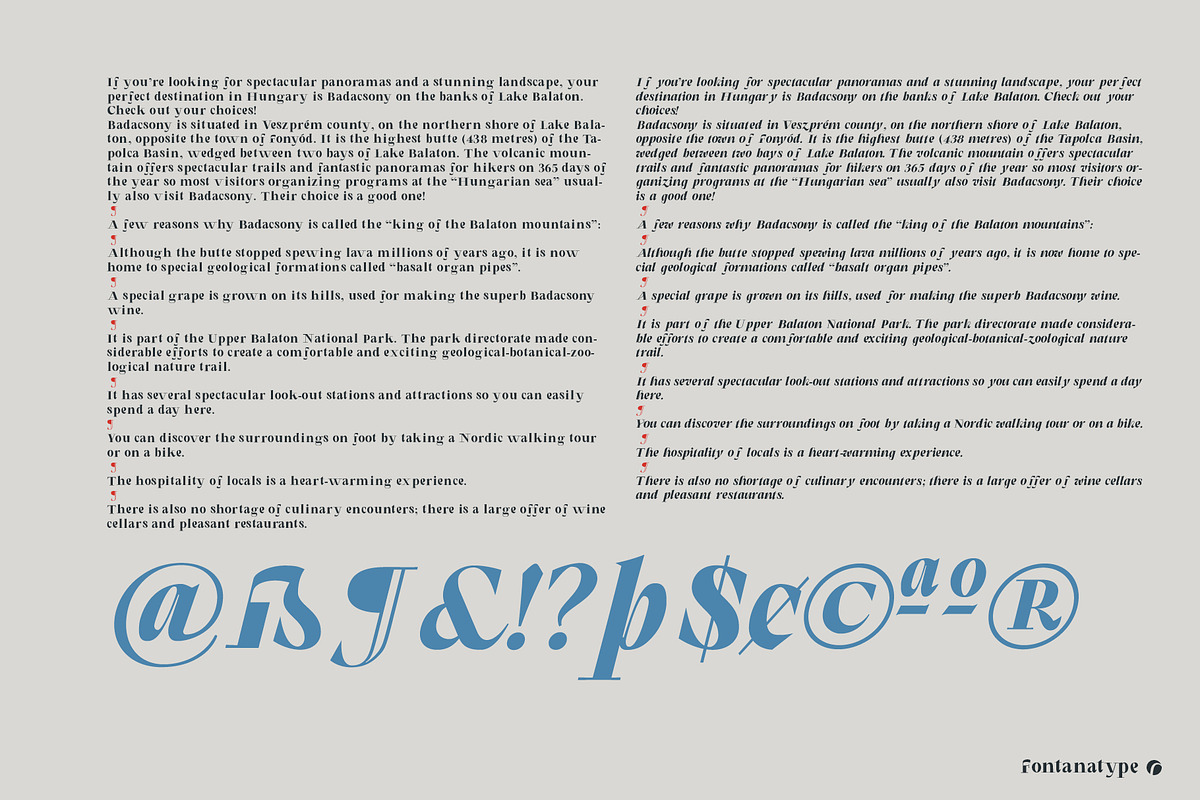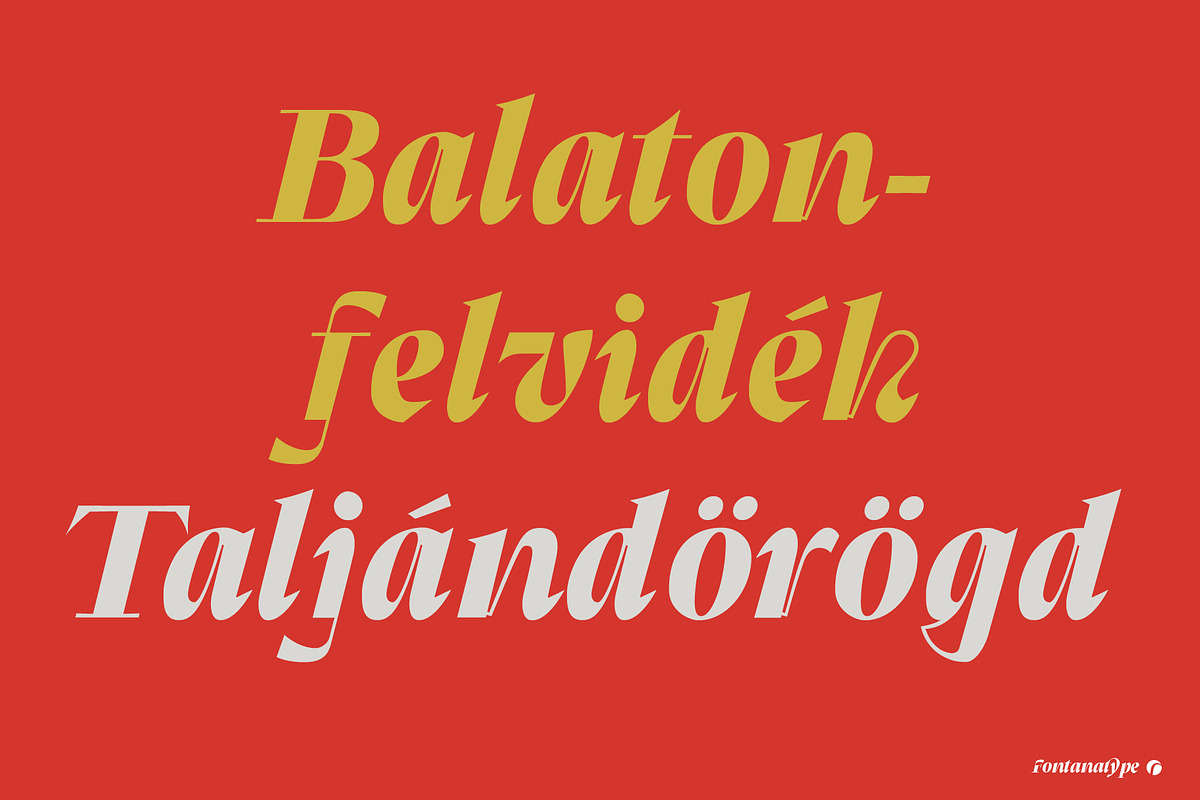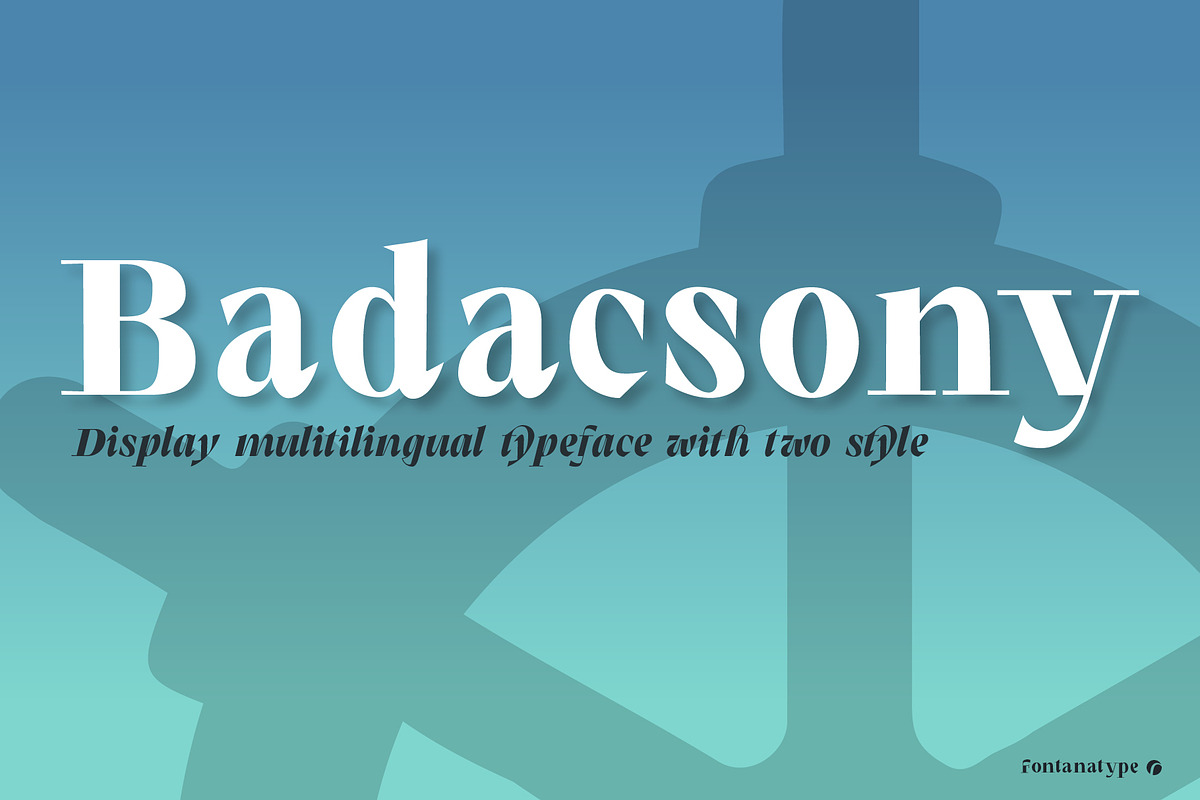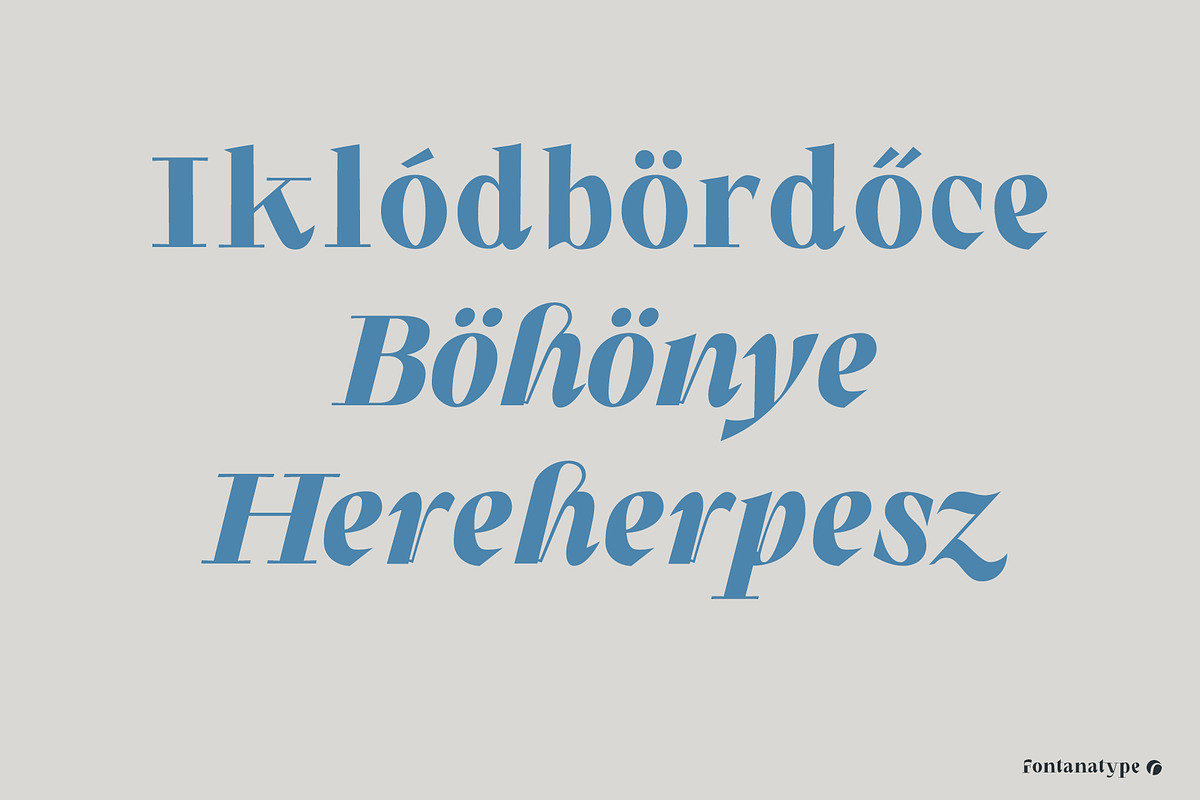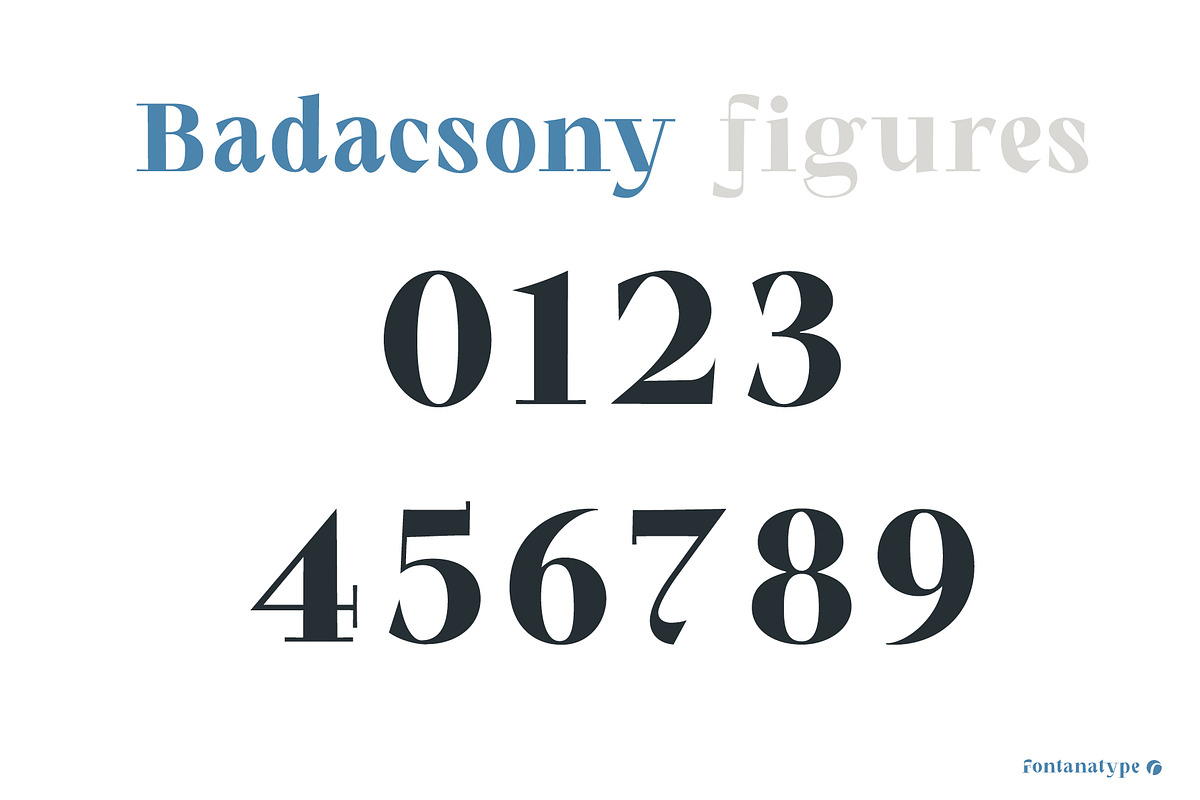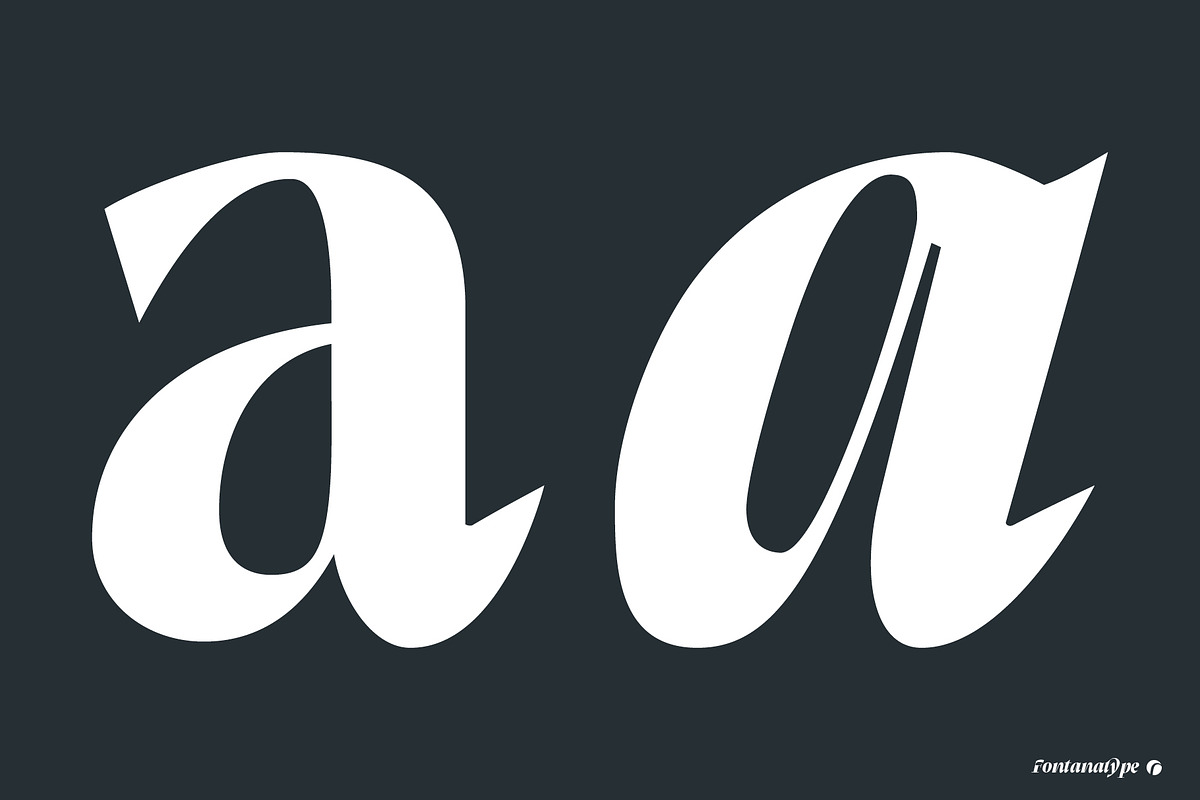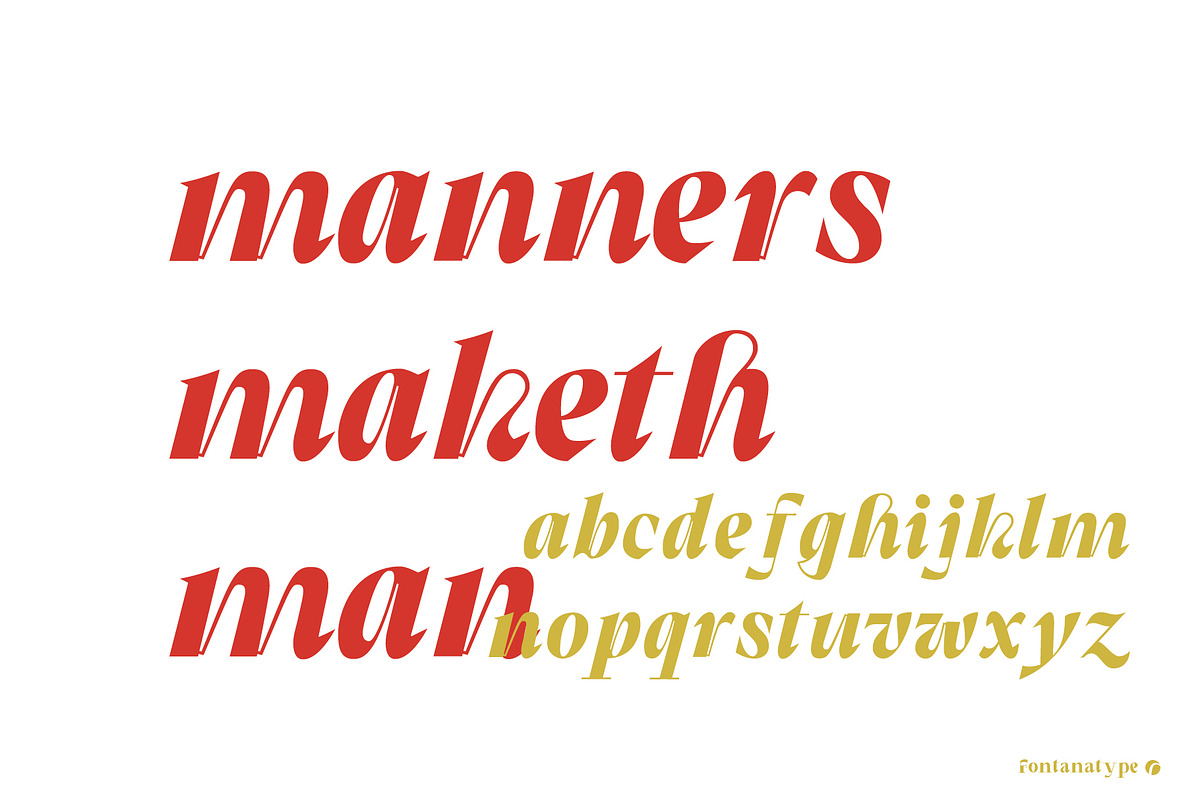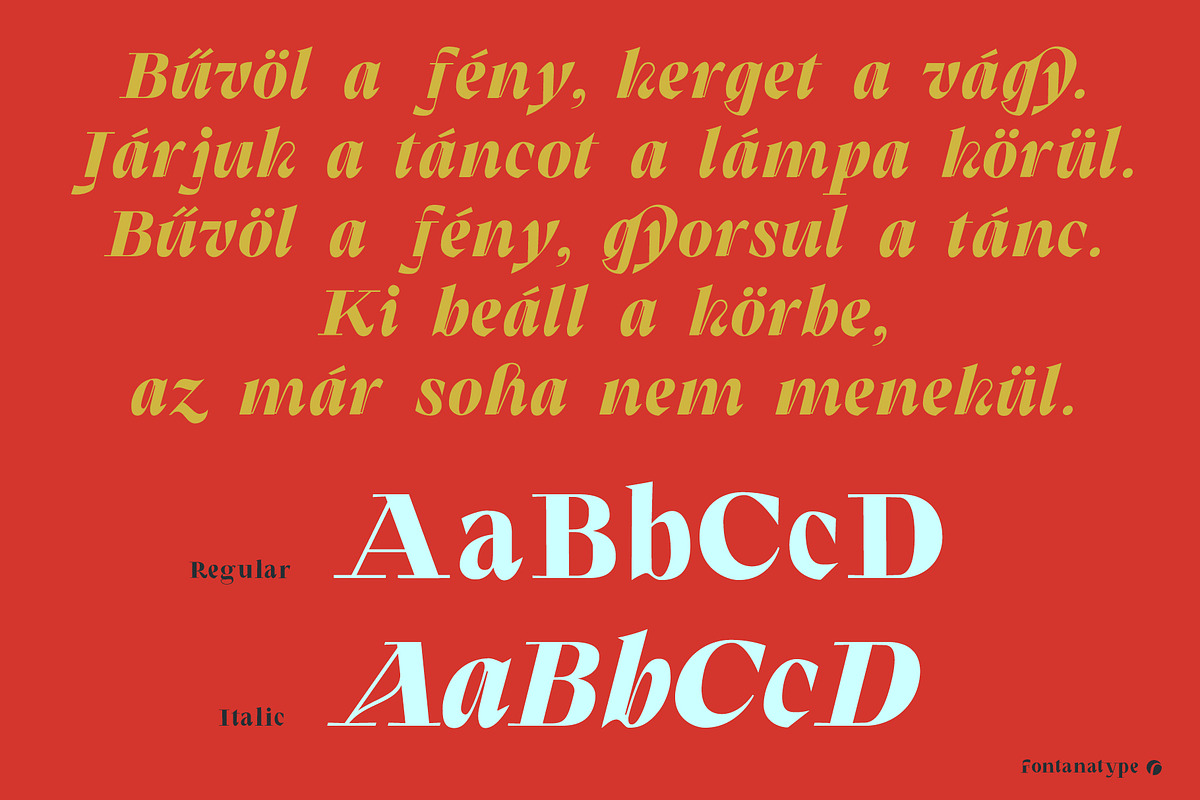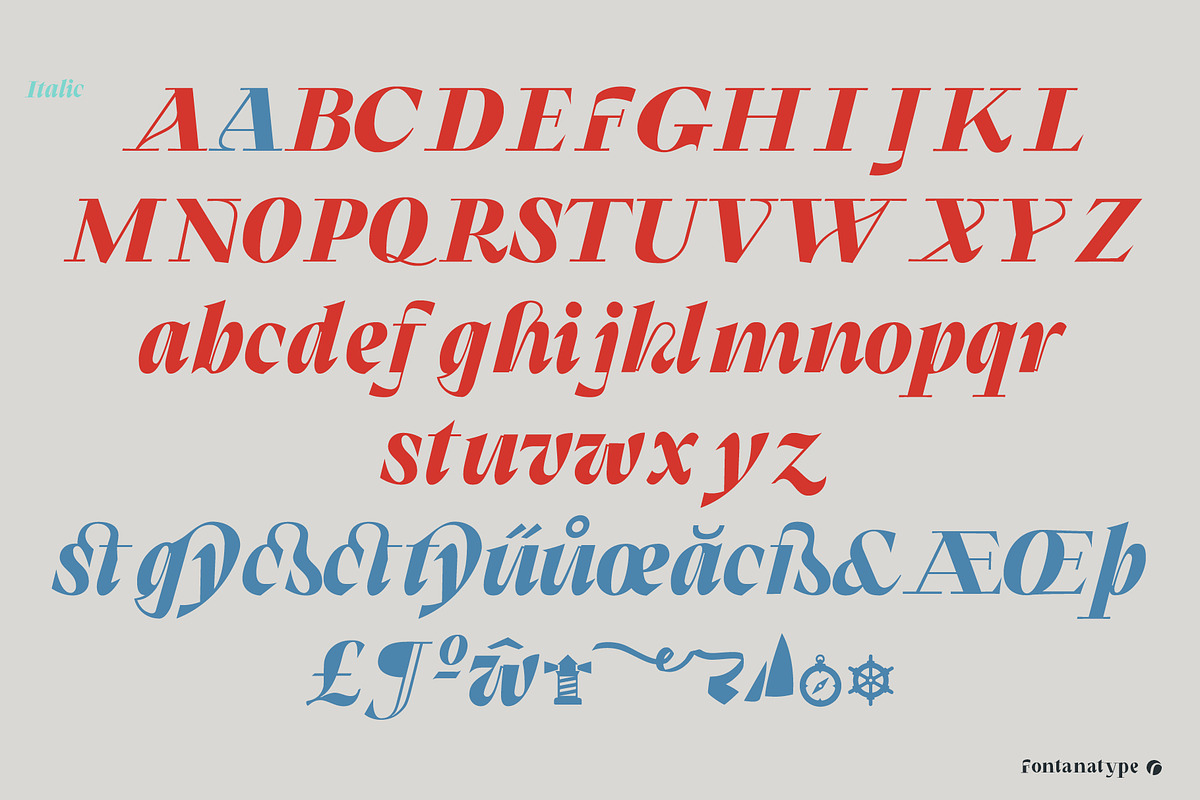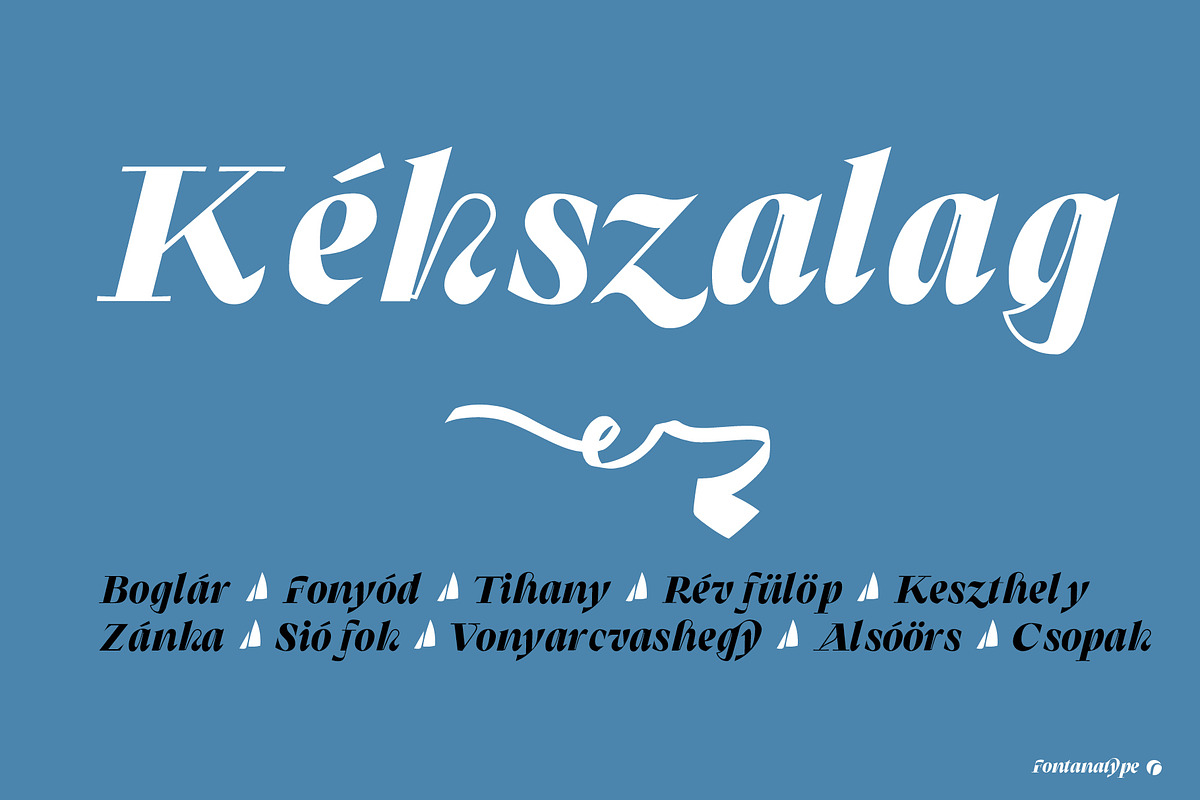
Badacsony
Badacsony is an elegant classic display typeface from Amondó Szegi which was inspired by classical letters and calligraphy. This font is multilingual and is perfect for branding, posters, letterhead, packaging designs, and much more.